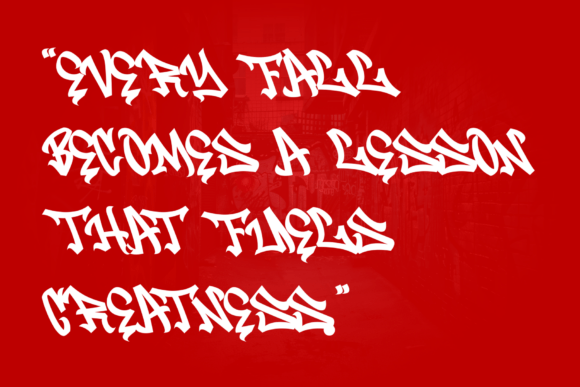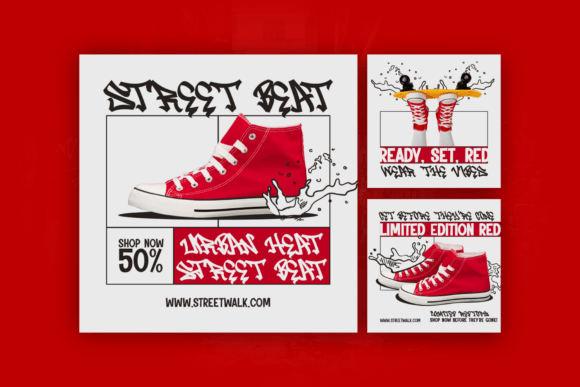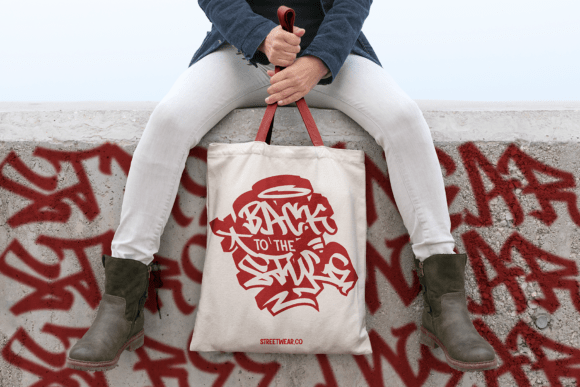
Introduction to Koobang Font
Do you remember the rush of creating your first street art piece? The feeling of freedom, the thrill of self-expression, and the satisfaction of bringing your ideas to life? That’s what Koobang Font is all about – capturing the essence of street art and infusing it into your designs. This high-quality, graffiti-style font is perfect for creative projects that demand authenticity and energy.
Whether you’re a seasoned designer or just starting out, Koobang Font is an invaluable resource that can elevate your work and set it apart from the crowd. Its unique monoline structure, complete with Swash and Ligature features, adds a touch of dynamism to every word, making it ideal for logos, apparel, posters, and branding endeavors. With its transparent background and crisp, marker-like strokes, Koobang Font is the perfect addition to any design project.
Key Features of Koobang Font
- Unique, hand-drawn design elements make it ideal for adding a personal touch to creative projects.
- Designed to be versatile and suitable for a wide range of design applications, from print to digital media.
Honest Review: Koobang Font
As a designer, I’m always on the lookout for high quality design resources to elevate my creative project. Recently, I stumbled upon the Koobang Font, and I’m excited to share my honest review with you.
- The Koobang Font has a unique and playful style that’s perfect for modern design projects.
- The transparent background allows for seamless integration with other design elements.
- The font is highly customizable, making it easy to adapt to different design needs.
Any limitations ⚠️
- The Koobang Font may not be suitable for formal or traditional design projects due to its playful style.
- The font may not be available in as many languages as some other popular fonts.
Overall, I’m impressed with the Koobang Font’s versatility and ease of use. While it may have some limitations, it’s a great addition to any designer’s toolkit. If you’re looking for a unique and high-quality design resource for your next creative project, the Koobang Font is definitely worth checking out.
Tips for Getting the Most Out of Koobang Font
Koobang Font is commonly used in creative projects such as logos, business cards, and brochures. Its high quality and transparent background make it an excellent choice for designers who want to create visually appealing and professional designs. The free download of Koobang Font makes it a great design resource for designers of all levels.